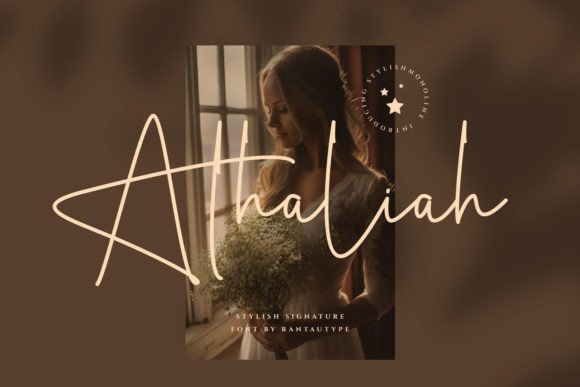
Behold, Athaliah Font - a Handcrafted Masterpiece for Your Digital Canvas
In a world of ordinary fonts, Athaliah emerges as a radiant gem, a script font that captivates with its elegant curves and impeccable style. Born from the creative vision of RantauType, Athaliah is a testament to artistry and innovation, crafted to transform your digital creations into masterpieces.
With its roots firmly planted in classic calligraphy, Athaliah exhibits a timeless grace that transcends fleeting trends. Its meticulously crafted strokes evoke a sense of sophistication and refinement, while its contemporary flair ensures it remains relevant and captivating in the modern digital landscape.
Whether you're a seasoned designer or a creative enthusiast, Athaliah is your perfect companion. Its versatility knows no bounds, effortlessly adapting to a myriad of projects, from heartfelt invitations and stunning logos to captivating social media posts and eye-catching branding materials. Embrace Athaliah and watch your designs blossom into works of art.
Step into a world of endless possibilities with Athaliah. Let your imagination run wild as you explore its myriad applications. Craft heartfelt wedding invitations that exude elegance and charm, design logos that radiate professionalism and creativity, or create social media posts that captivate and engage your audience. Athaliah is the ultimate tool to transform your digital presence into a symphony of visual delight.
Don't settle for ordinary fonts that blend into the background. Choose Athaliah, a font that commands attention, sparks conversations, and leaves a lasting impression. Experience the joy of creating with a font that not only enhances your designs but also ignites your creative spirit.
Make Athaliah your font of choice and embark on a creative journey like no other. Let your imagination soar as you create designs that resonate with your audience, leaving them mesmerized by your artistic prowess. Athaliah is more than just a font; it's a gateway to a world of creative possibilities, waiting to be explored.